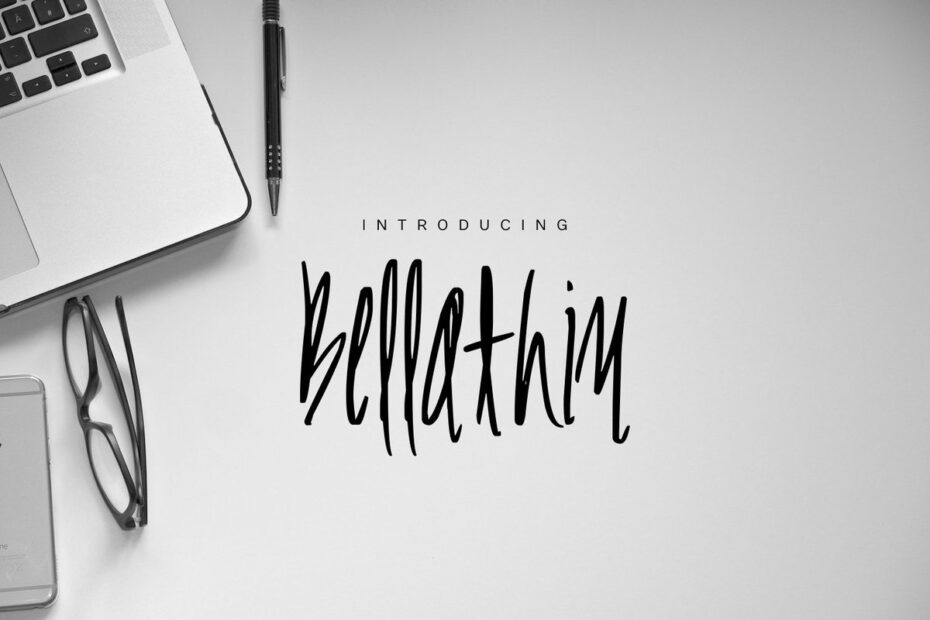
A Brushstroke of Authenticity: The Allure of Bellathin Font
As designers, we’ve all been there – stuck on a project, trying to capture the perfect tone, the perfect feel. And then, it hits us – a burst of inspiration, a flash of creativity that sets our minds racing. For me, it was a lazy Sunday afternoon, surrounded by old notebooks and scattered papers. I stumbled upon a handwritten note, scribbled in a quirky, vintage font that seemed to whisper ‘relax, be authentic.’
That’s when I discovered the Bellathin Font – a thin and condensed masterpiece with a stylish vintage touch. This elegant font is designed to add a touch of sincerity to modern designs, making it a perfect mimicry of casual and relaxed handwriting.
For designers, the Bellathin Font is a treasure trove of creative possibilities. Its unique blend of vintage charm and modern sophistication makes it an invaluable addition to any design arsenal.
Bellathin Font Key Features
- Unique Characteristics: Bellathin Font features a unique blend of modern and elegant design elements, including flowing lines, subtle flourishes, and precise typography.
- Language Support: The font supports a wide range of languages, including Latin, Cyrillic, and Greek scripts, making it suitable for global design applications.
- Font Style: Bellathin Font comes in regular, italic, bold, and bold italic styles, providing versatility for various design needs.
Bellathin Font Review
Overall, I think the Bellathin Font is a nice addition to any design project, but it has its limitations.
- Unique and elegant design style: The Bellathin Font has a distinctive, hand-drawn feel that can add a touch of sophistication to any design.
- Good legibility: The font is clear and easy to read, even at smaller sizes.
- Supports various languages: Bellathin Font is a Unicode font, which means it supports a wide range of languages and characters.
Limitsations ⚠️
- Not ideal for body text: While the font looks great for headings and titles, it may not be the best choice for body text due to its smaller character set and limited line spacing options.
- May not be suitable for digital displays: The font’s design may not translate well to digital displays, which can cause it to appear blurry or pixelated.
- Limited bold and italic weights: The font only comes in a limited range of bold and italic weights, which can make it difficult to create visual hierarchy.
Overall, I would recommend the Bellathin Font for projects that require a unique and elegant design style. However, it’s essential to consider its limitations and potential drawbacks before using it for body text or digital displays.
Tips for Getting the Most Out of the Bellathin Font
To get the most out of the Bellathin font, consider the following tips:
– Use the font in bold or italic to add emphasis to your text.
– Pair the Bellathin font with a complementary font to create visual interest.
– Use the font in a large size to make it stand out in your design.
The Bellathin font is commonly used in:
– Fashion and beauty branding
– Luxury goods and services
– High-end design and marketing materials
Alternatives to Bellathin Font
Playfair Display is a luxurious, elegant serif font that works well for titles, headings, and branding. It’s ideal for creating a high-end, sophisticated look.
Compared to Bellathin Font, Playfair Display has a more traditional, vintage feel, with intricate details and flourishes. It’s a great choice for designers who want to add a touch of luxury to their projects.
Didot is a classic, elegant serif font that’s perfect for creating a sense of sophistication and refinement. It’s great for titles, headings, and body text.
Q: Does the Bellathin Font support Unicode and language-specific features?
Yes, the Bellathin Font supports Unicode and includes language-specific features such as ligatures, fractions, and ordinal indicators. The font also includes a range of language support, including Latin, Cyrillic, and Greek scripts. This makes it suitable for designing content in multiple languages and scripts.